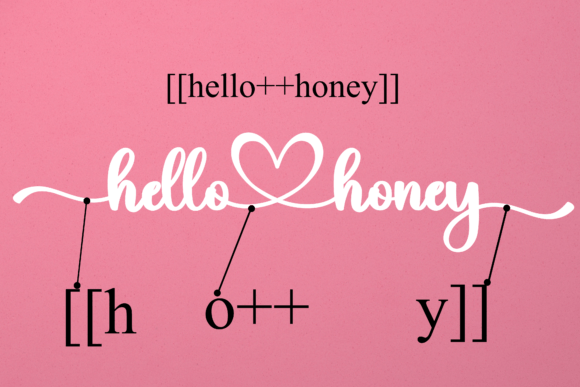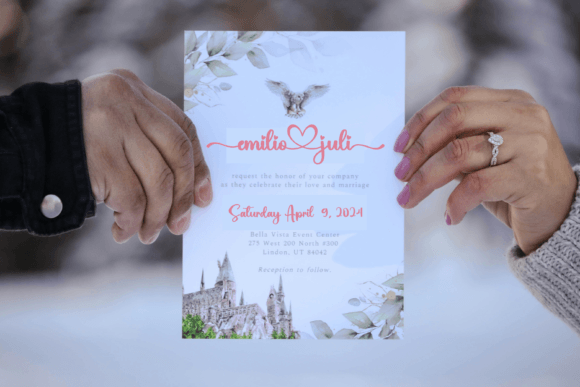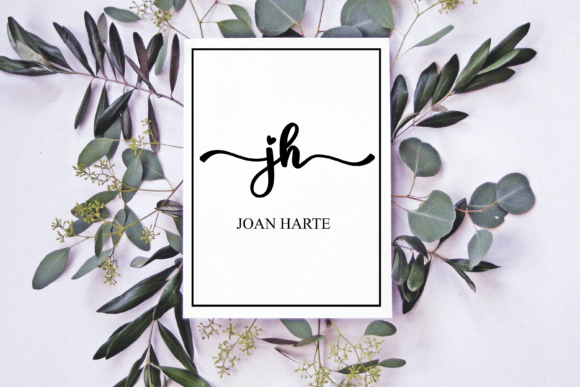
Introduction to Hello Honey Font
As a designer, have you ever found yourself in a creative rut, struggling to convey the perfect message to your audience? You’re brainstorming ideas for a new project, and nothing seems to stick. That’s when the magic happens – you stumble upon the perfect font. For many creatives, the Hello Honey Font is that elusive gem that brings their designs to life. With its unique, handwritten style, it’s the perfect addition to any project that requires a touch of elegance and sophistication.
The Hello Honey Font is a game-changer for designers, offering a high-quality, versatile resource that can be used in a multitude of creative projects. Whether you’re working on a wedding invitation, social media post, or product packaging, this font is sure to impress. Plus, with its transparent background, it’s easy to layer and combine with other design elements to create a truly unique look.
Key Features of Hello Honey Font
- Unique, hand-drawn design with a warm and inviting feel, perfect for creative projects that require a personal touch.
- High-quality font with transparent background, allowing for seamless integration into any design resource.
- Features a large character set, including uppercase and lowercase letters, numbers, and punctuation marks, making it suitable for a wide range of applications.
- Designed at a high resolution (300 DPI) to ensure crisp and clear text, even when scaled up or down.
- Perfect for use in logos, branding materials, and other design elements where a touch of personality is needed.
Honest Review: Hello Honey Font
I recently stumbled upon the Hello Honey Font while searching for a unique design resource for a creative project. After giving it a try, I wanted to share my honest thoughts on this font.
- ✨ The transparent background allows for seamless integration into various design elements.
- ✨ The font’s high quality is evident in its smooth lines and clear typography.
- ⚠️ The font may not be suitable for projects requiring a lot of text, as it can be quite delicate.
Overall, I’m impressed with the Hello Honey Font’s unique style and high-quality design. While it may have some limitations, it’s an excellent choice for designers looking for a creative project or a design resource with a transparent background.
Tips for Getting the Most Out of Hello Honey Font
Common Use Cases for Hello Honey Font
The Hello Honey Font is a versatile design resource that can be used in a variety of creative projects, including invitations, brochures, and social media graphics. Its transparent background and high-quality design make it an ideal choice for designers who need a reliable and flexible font option.